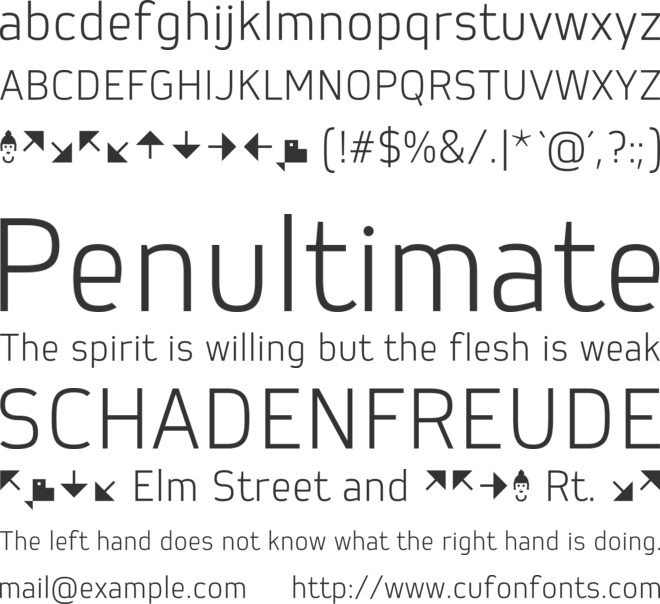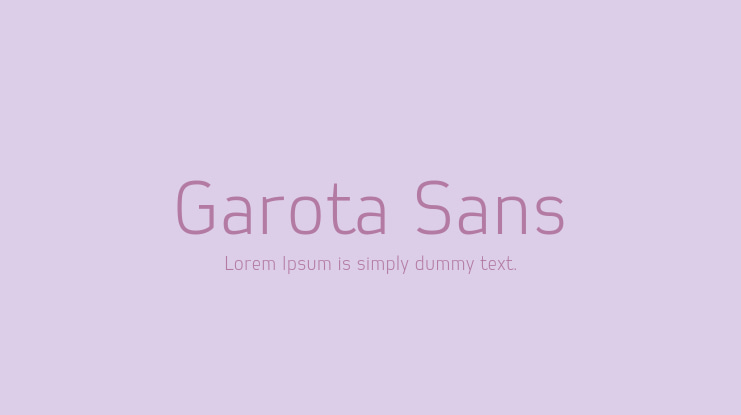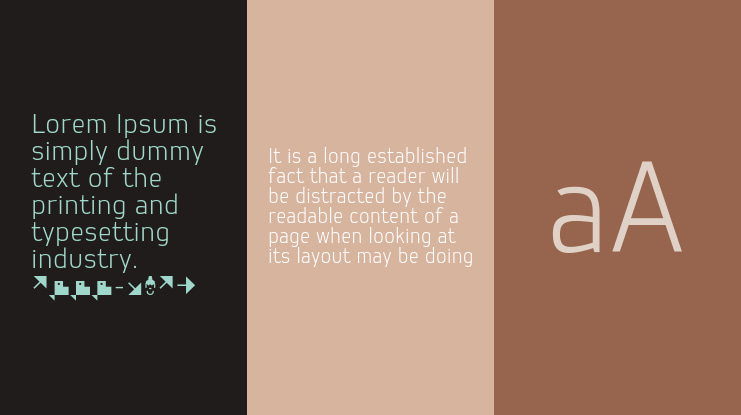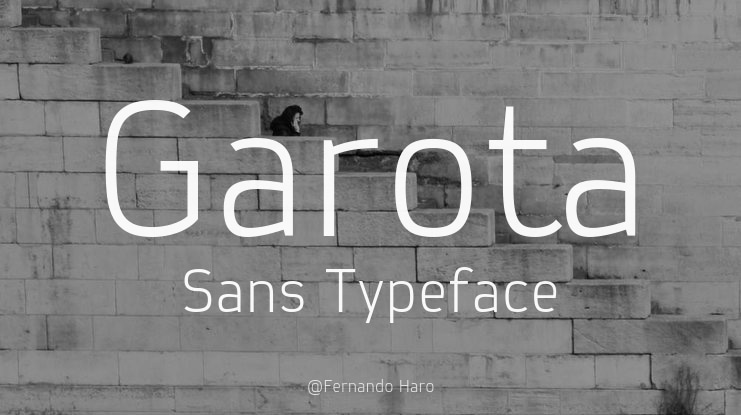
Garota Sans Font Family
Garota Sans is distinguished by its slightly narrow proportions and generous metrics. Every detail has been carefully adjusted to ensure a smooth and clear reading experience. The kerning has been meticulously configured to provide space and a consistent, easy-to-follow reading rhythm, which is essential for both long texts and impactful headlines.
The typeface family consists of 12 fonts, distributed across four weights (Light, Regular, Medium, and Bold) and three styles (Roman, Italic, and Small Caps). This versatility allows for its use in a wide range of applications, from editorial and advertising projects to posters, magazines, or videos.